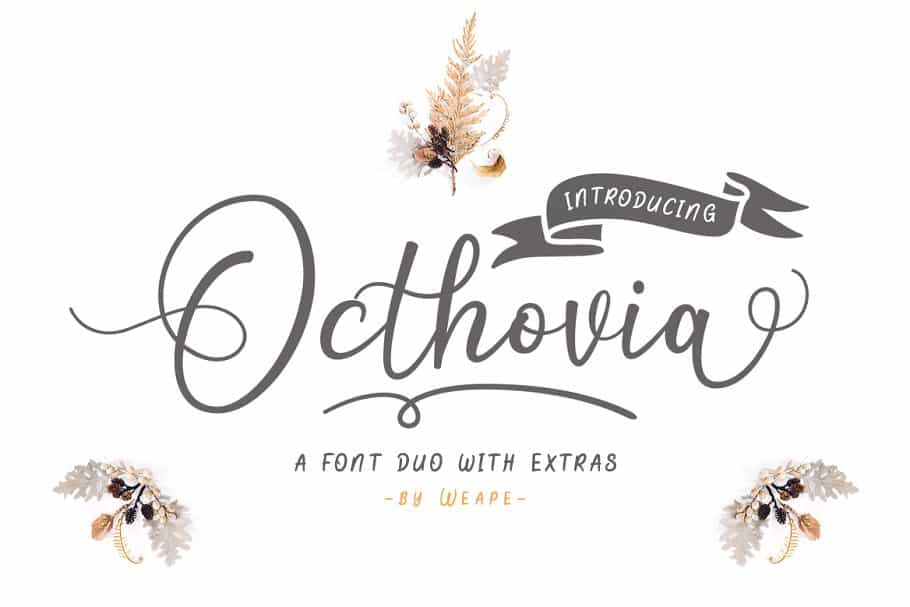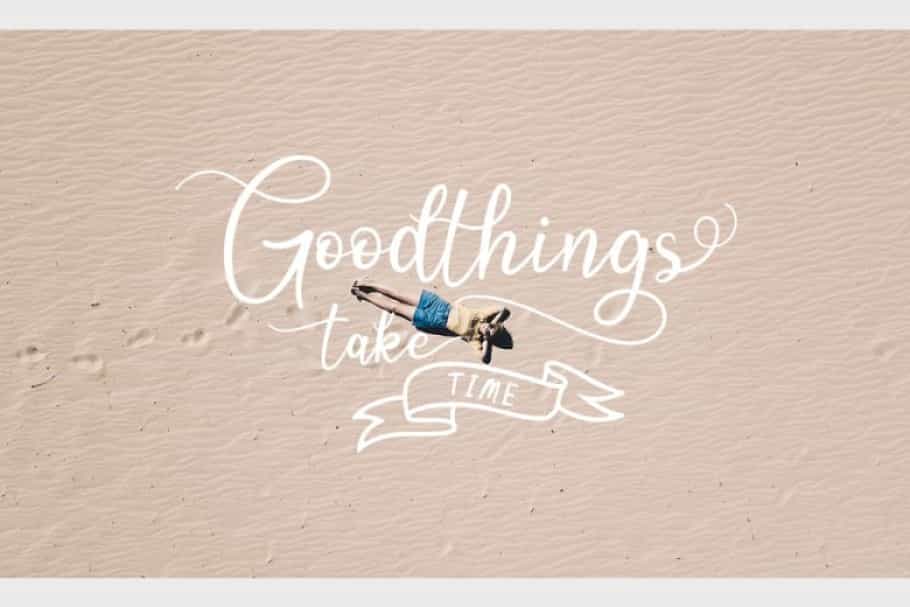
We would like to introduce you the new font Octhovia Script Font. The combination of a pair font with the touch of modern calligraphy and illustrations make every sentence look beautiful. Octhovia is constructed with opentype features and also has swash at the beginning and end, alternative letters, as well as ligatures so it looks like a handwritten style.